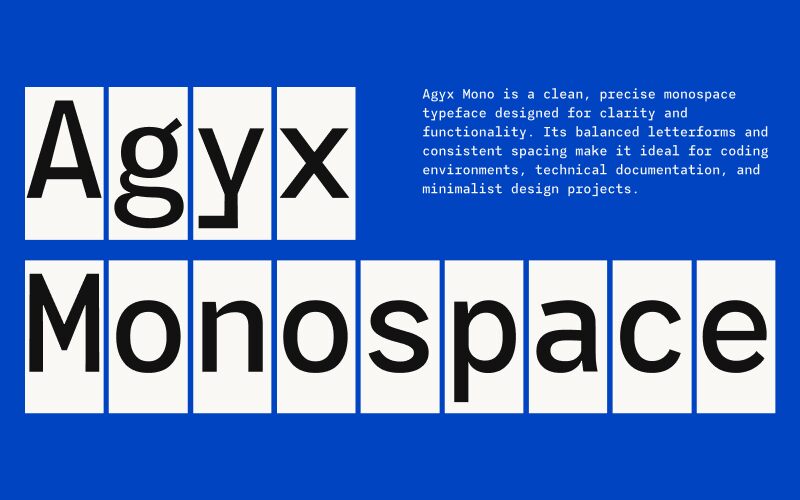
Agyx Mono Regular
Agyx Mono font is a minimalist monospace typeface designed by Fitrah Type to embrace technological advancements while retaining readability. Every letter is characterized by its slightly geometric appearance, making this fixed-width font very appealing to the eye and organized to the mind.
What would be surprisingly good about this font is that it can prove ideal in a multitude of ideas. Use it on terminal-style text, documents for coding or programming purposes, game design/animation texts, corporate print/digital copies for tech companies, or even ebook manuscript writing!